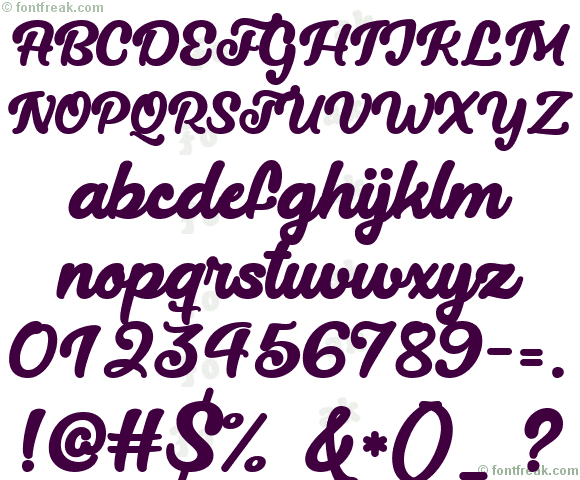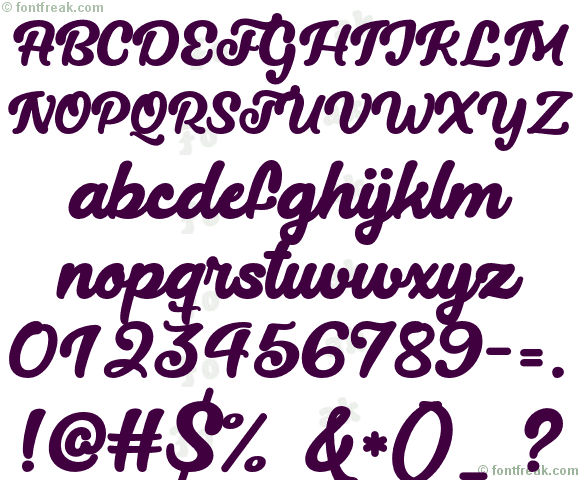
Lucy the Cat Regular
About Lucy the Cat Regular
Lucy the Cat Regular is a delightful script font designed by Misti Hammers, embodying a playful yet elegant style. This font falls into the handwritten category, making it perfect for designs that require a personal touch. The strokes exhibit a medium weight with a subtle contrast, giving the characters a balanced and inviting appearance. The spacing between letters is generous, contributing to its legibility while maintaining a whimsical charm. Decorative elements, such as the playful curves and loops, enhance its character, making it visually engaging.
This versatile font is ideal for a variety of creative projects. It shines in wedding invitations, where its elegant flair can add a romantic touch. Lucy the Cat Regular also works beautifully for children's book covers, lending a sense of fun and imagination. Small business owners can use it for branding materials, such as logos and packaging, to convey a friendly and approachable image. Additionally, it's well-suited for social media graphics, allowing content creators to craft eye-catching posts that resonate with their audience.
The primary target audience for Lucy the Cat Regular includes graphic designers, small business owners, and content creators looking for a unique font to elevate their projects. Its charm and versatility appeal to a broad spectrum of users who appreciate a blend of creativity and professionalism.
What sets Lucy the Cat Regular apart is its ability to infuse personality into any design. The blend of elegance and playfulness makes it a standout choice for those seeking a font that captures attention while remaining approachable. For anyone interested in incorporating this enchanting typeface into their design portfolio, Lucy the Cat Regular font free download is an excellent opportunity to enhance your creative toolkit.